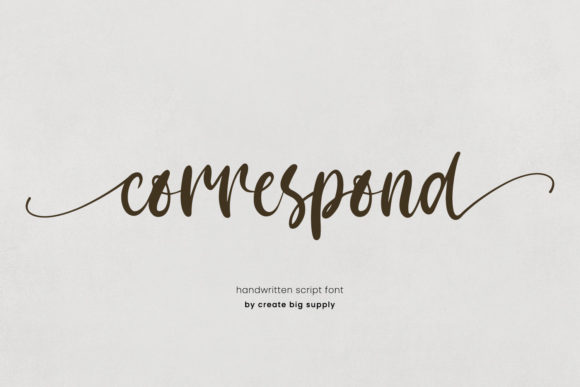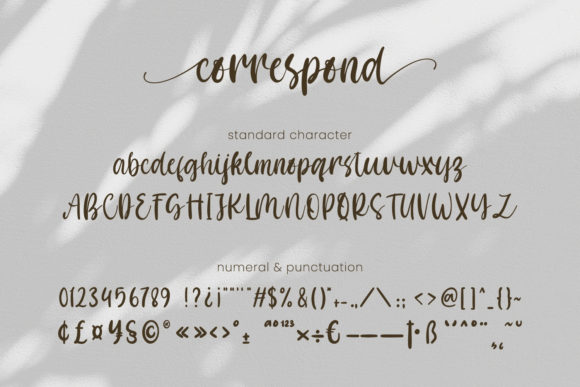
Correspond Script Font
About Correspond Script Font
Correspond Script is a sweet and delicate handwritten font. This font is PUA encoded which means you can access all of the glyphs and swashes with ease!